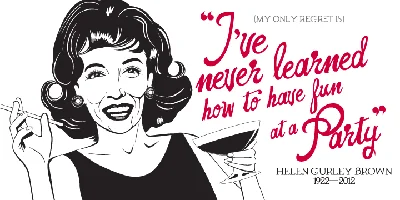
Dubliners Font
Dubliners is a carefully designed typeface that brings a refined aesthetic to any creative project.
Common applications include business cards, posters, web headers, advertising materials, book covers, and corporate identity systems.